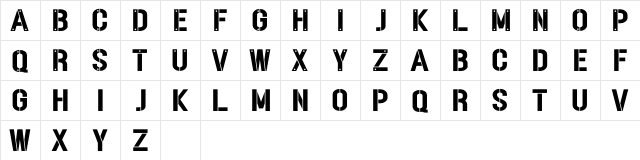
STENCILAND Regular
STENCILAND borrows the utilitarian aesthetic of stencil lettering, with its characteristic cutaways and no-frills construction lending an industrial edge.
A strong choice for packaging that needs edge, warehouse aesthetics, and rough-and-ready visual identities.
Pro Tip: Use STENCILAND at large sizes on packaging, posters, or apparel where the stencil cutaways read clearly. Avoid small sizes where those gaps become visual noise.